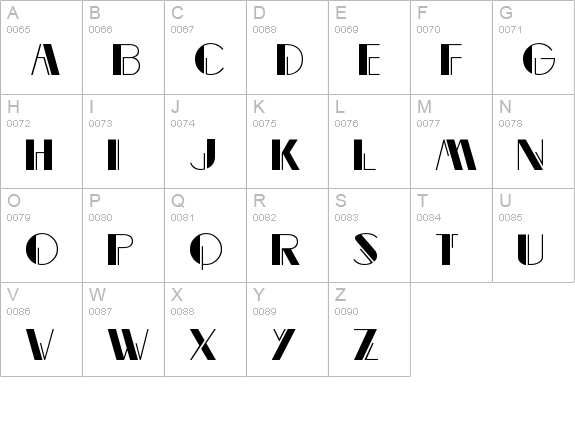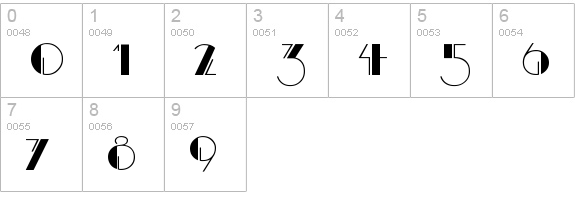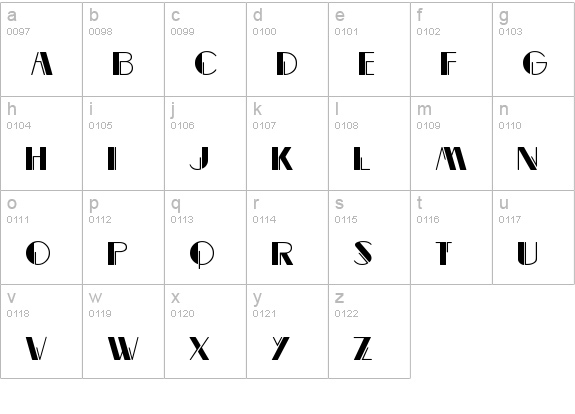
Serfin font is a modern and elegant typeface that exudes sophistication and versatility. With its clean lines and stylish curves, Serfin is the perfect choice for a wide range of design projects, from branding to editorial design. Whether you're creating a sleek logo or designing a chic magazine layout, Serfin will add a touch of class to your work. What sets Serfin apart is not only its timeless design, but also the fact that it is available for free download at FontsMarket.com. This means you can access this high-quality font without any cost, making it a valuable asset for designers and creatives looking to elevate their projects without breaking the bank. Download Serfin font today from FontsMarket.com and discover the endless possibilities it offers for your design endeavors. Let Serfin elevate your work with its sophistication and style, all for free at your fingertips.